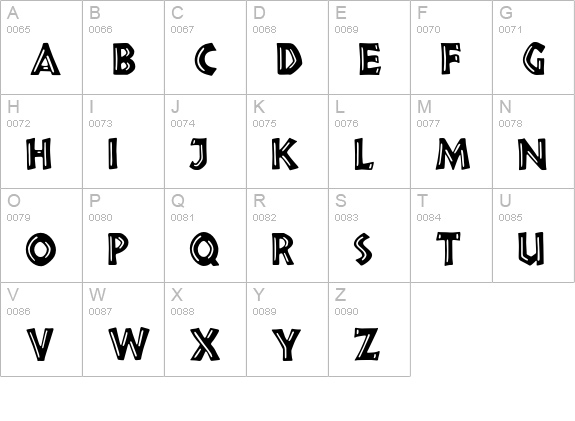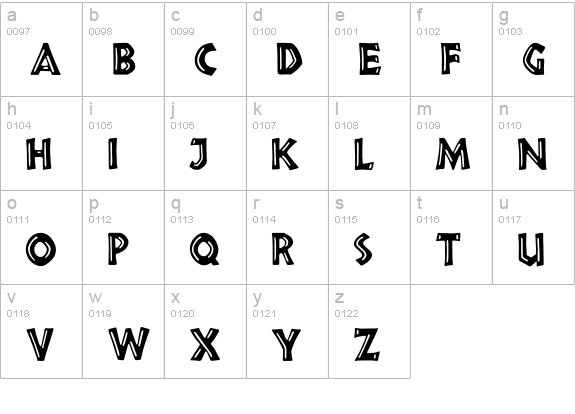
Chieftan-Inline Font Details
Chieftan-Inline is a bold and dynamic display font that exudes strength and power. Its unique design features inline details that add a modern and edgy touch to any project. This versatile font is perfect for headlines, branding, posters, and more. Best of all, Chieftan-Inline is available for free download at FontsMarket.com. Whether you're a designer looking to make a statement or a business owner in need of a striking font for your marketing materials, Chieftan-Inline is sure to impress. Don't miss out on this fantastic opportunity to enhance your projects with this eye-catching font. Download Chieftan-Inline today and unleash your creativity!